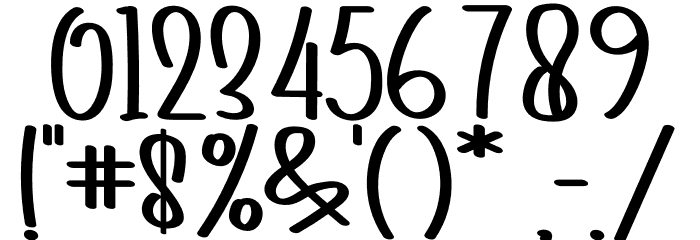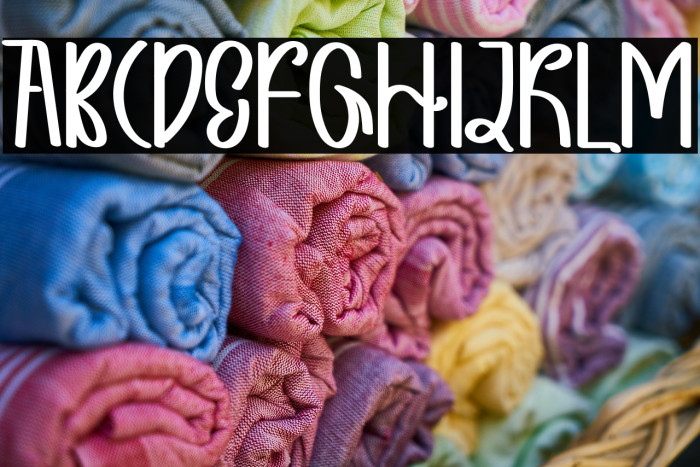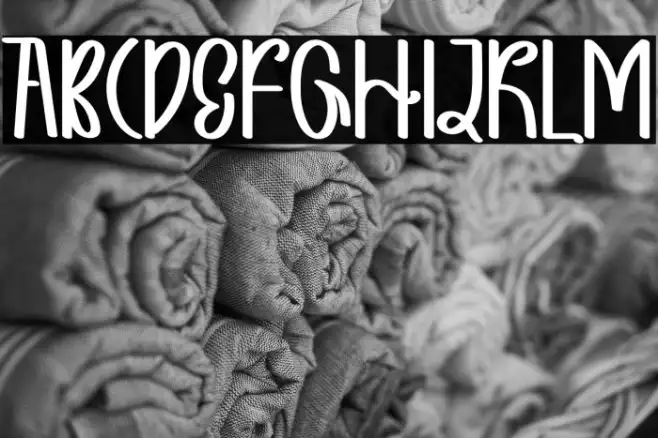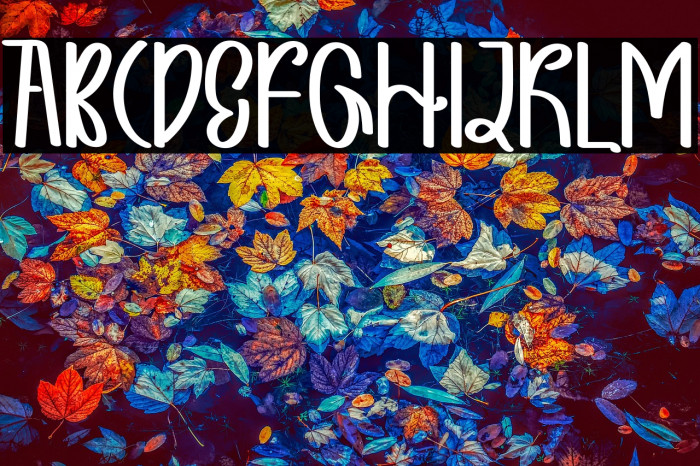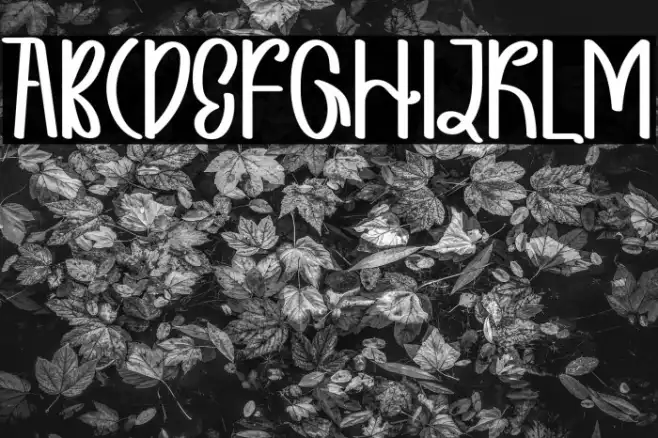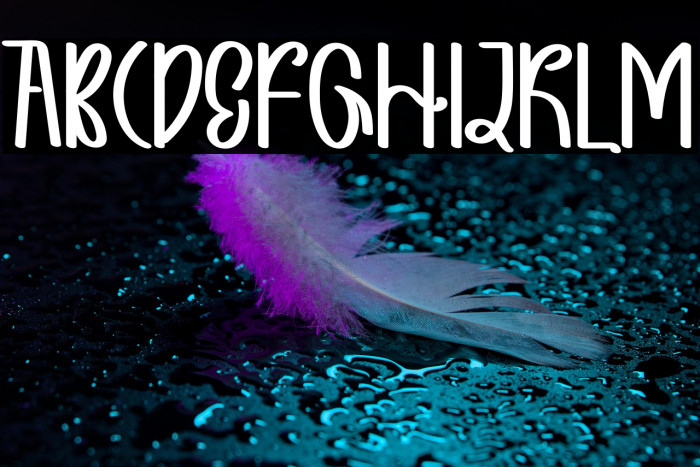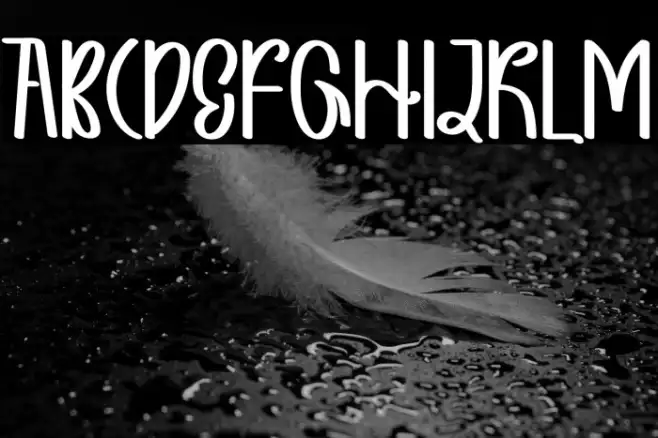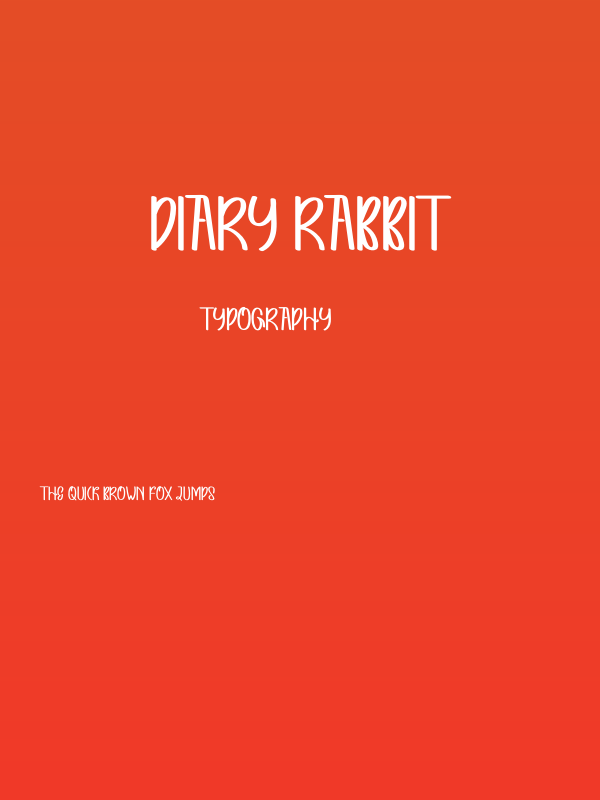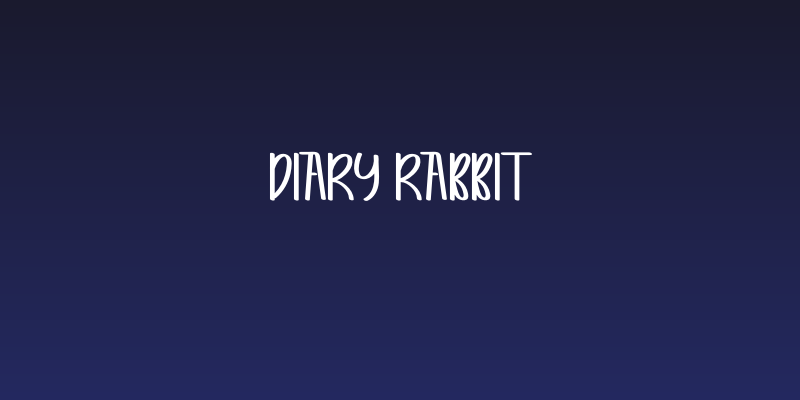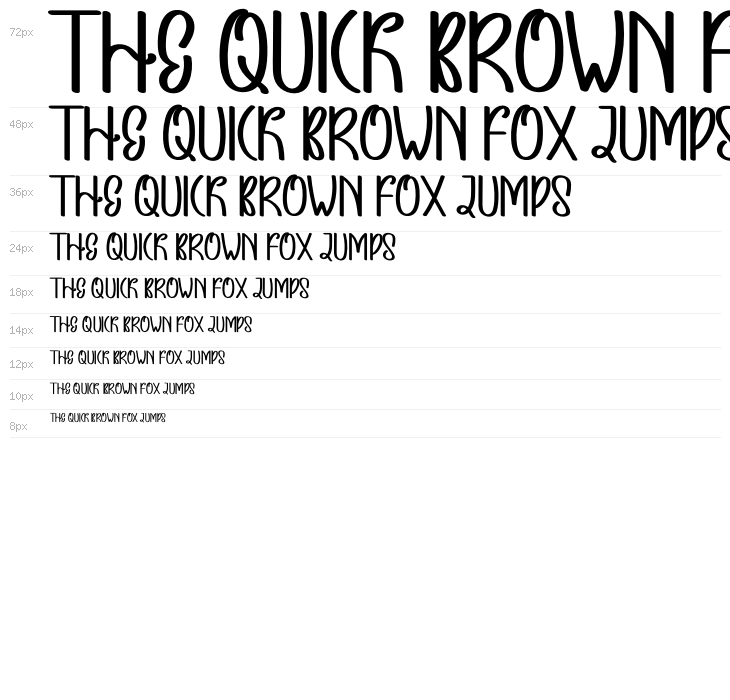
DIARY RABBIT Font
DIARY RABBIT Description
This font features a playful and whimsical design with a handwritten style. The letters are tall and narrow, with a consistent stroke width that gives it a clean and modern look. The uppercase and lowercase letters maintain a cohesive style, with rounded edges and a slight slant that adds a touch of elegance. The numbers and special characters are designed to match the overall aesthetic, making it versatile for various uses. The font's unique character is perfect for projects that require a fun and approachable feel.
| Use Case | Headlines, Logos, Social media graphics |
| Proposed Projects | Ideal for greeting cards, children's books, playful branding, and social media graphics. |